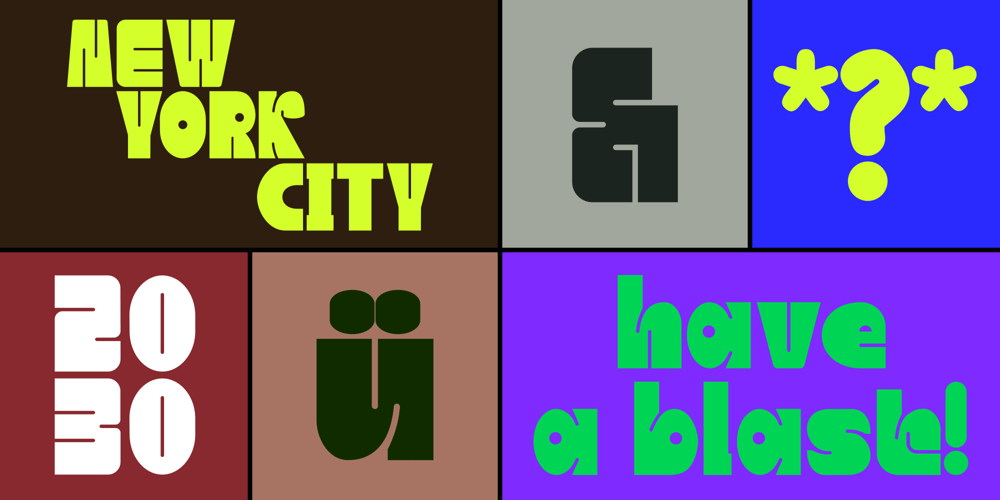
Jubel Font Family was designed by Zyad Shokry and published by Sine. Jubel contains 1 styles and family package options. Jubel font is named after the German word for “celebration”. Crafted with a natural, blocky style, Jubel is designed for various creative uses, including magazine titles, captivating headlines, book titles, distinctive logos, vibrant shop banners, attention-grabbing flyers, and impactful advertising headlines.